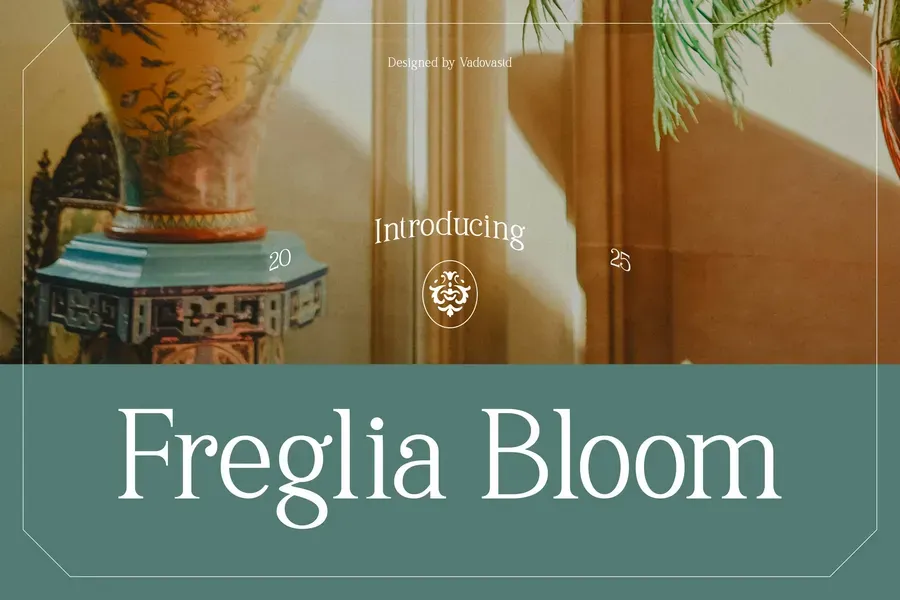
Freglia Bloom is a vintage-inspired serif font that captures the charm of classic interiors and handcrafted elegance. With refined curves and ornamental details, it’s ideal for packaging, botanical branding, antique labels, and editorial spreads. The font evokes a timeless aesthetic rooted in artisanal tradition, making it a perfect fit for home decor products, elegant stationery, and boutique branding. Freglia Bloom brings heritage, style, and sophistication to any creative work.